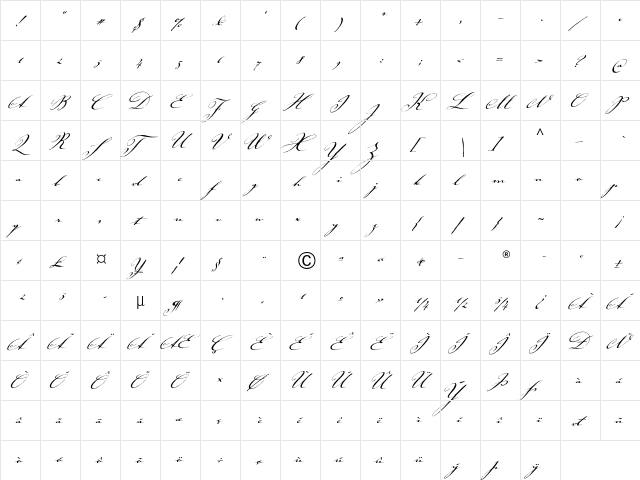
Johann Sparkling ITC Std Regular
| Designer | Viktor Solt |
Design Context for Johann Sparkling ITC Std Typeface
Johann Sparkling ITC Std is a composed and adaptable typeface that performs quietly and consistently across a wide range of design contexts.